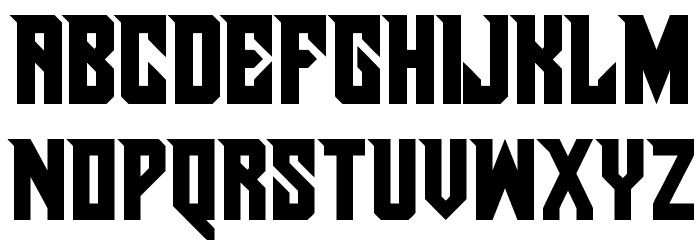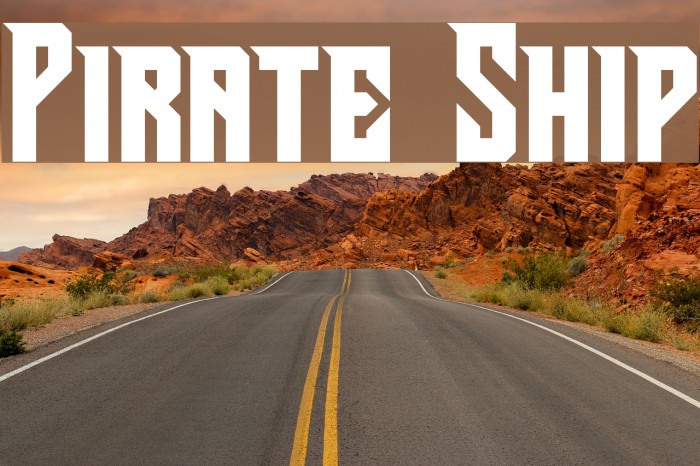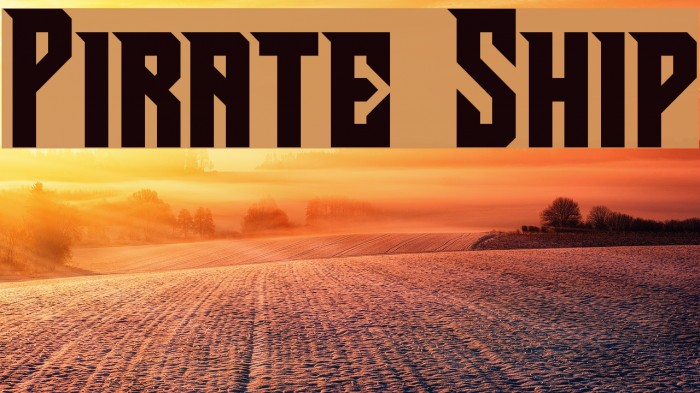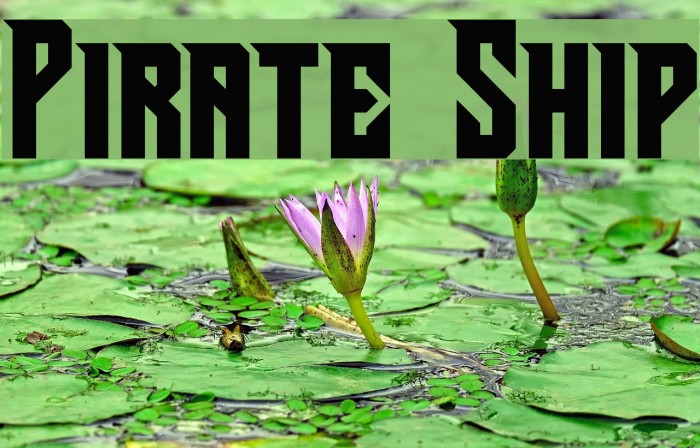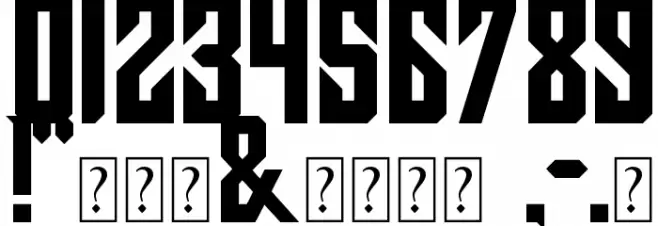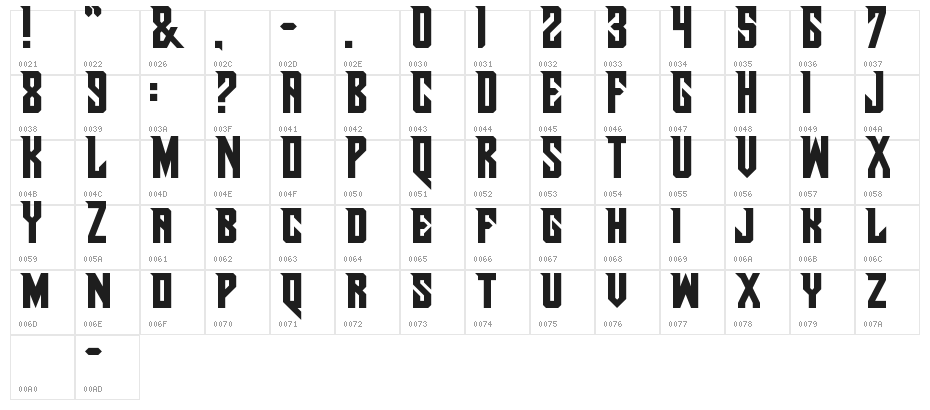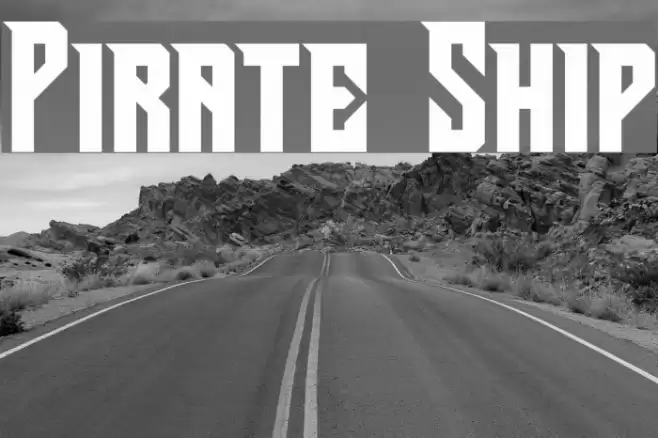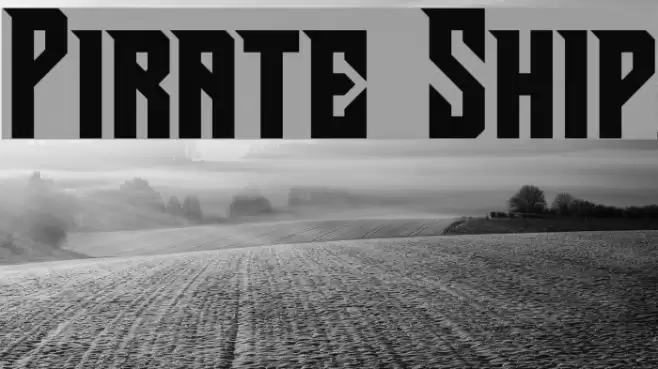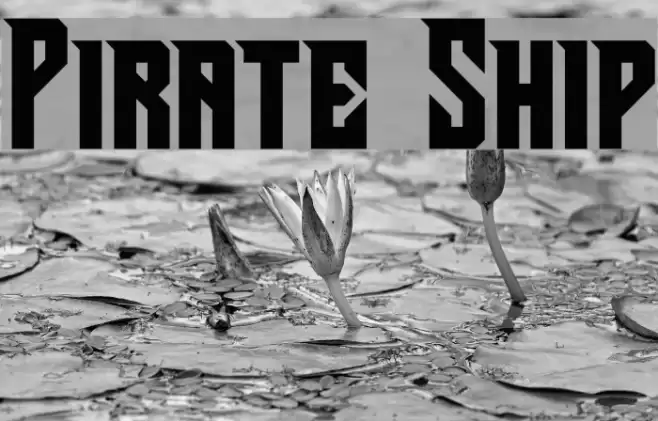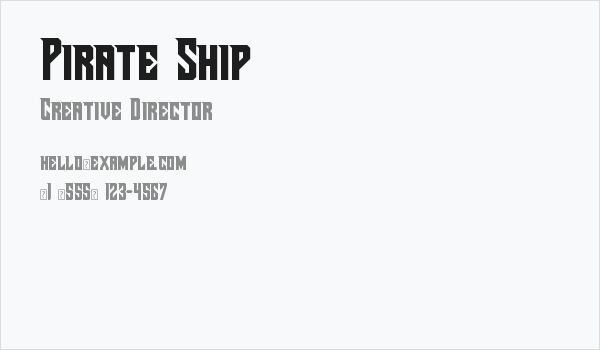
Pirate Ship Font
This font features a bold and angular design, reminiscent of pirate-themed aesthetics. The characters have sharp, geometric edges and a distinct blocky appearance, giving them a strong and commanding presence. The uppercase and lowercase letters maintain a consistent style, with the uppercase being particularly striking. Numbers and special characters follow the same bold and angular theme, ensuring uniformity across the font. The overall design is highly decorative, making it suitable for thematic projects that require a touch of adventure or a vintage maritime feel.
A bold, angular font with a pirate-themed, decorative style.
- Proposed Projects: Ideal for pirate-themed events, adventure games, themed posters, and vintage maritime branding.
- Use Case: Headlines, Logos, Themed Posters